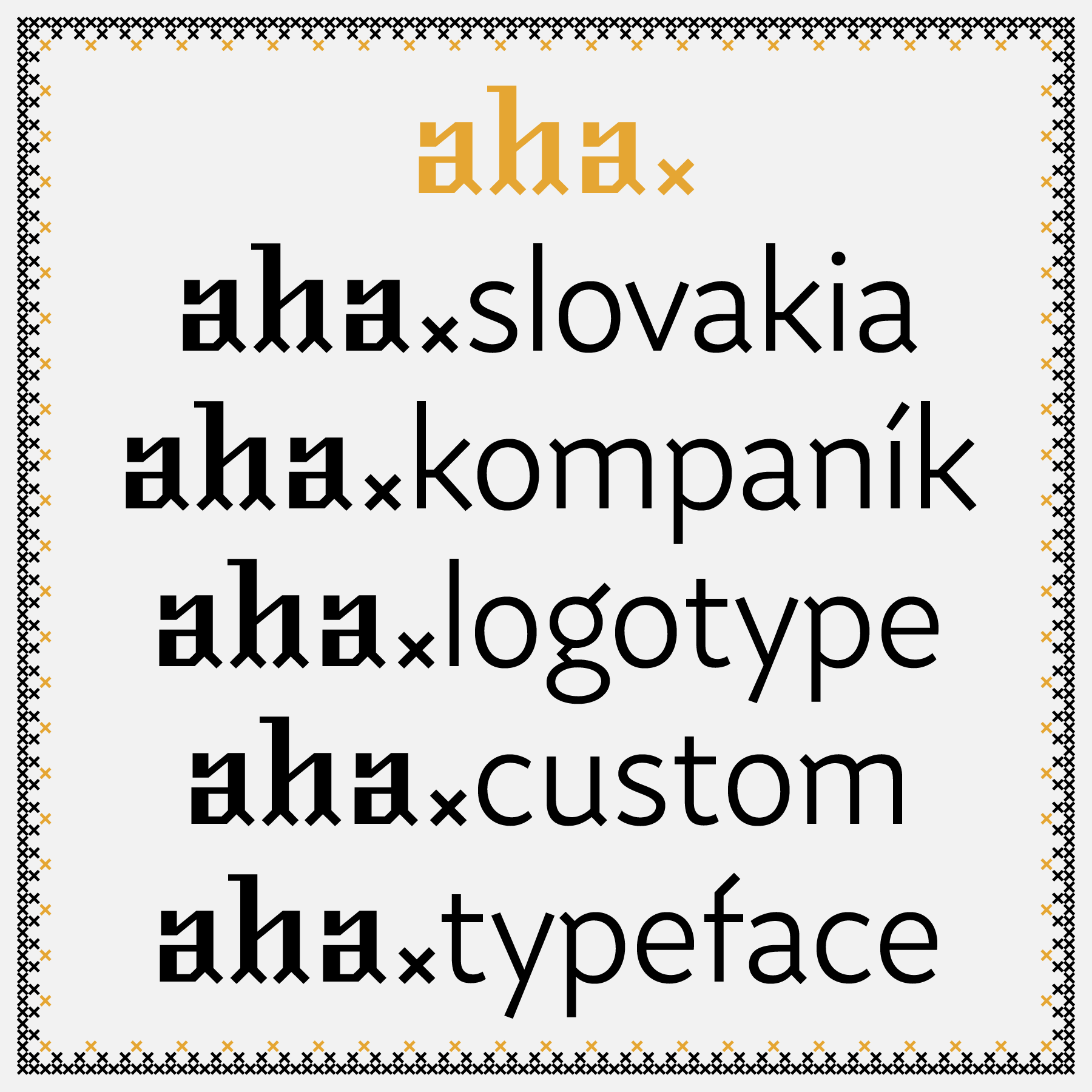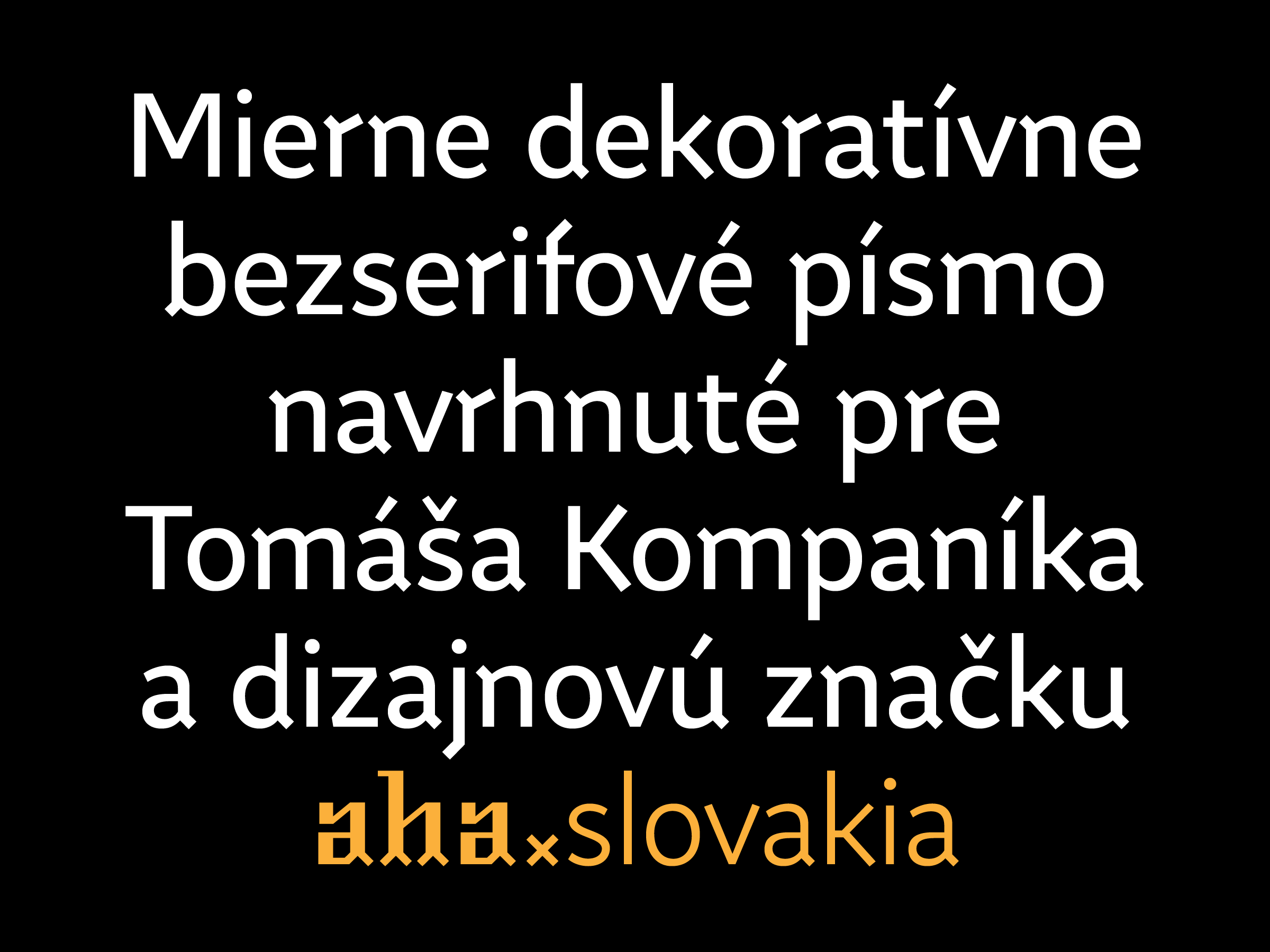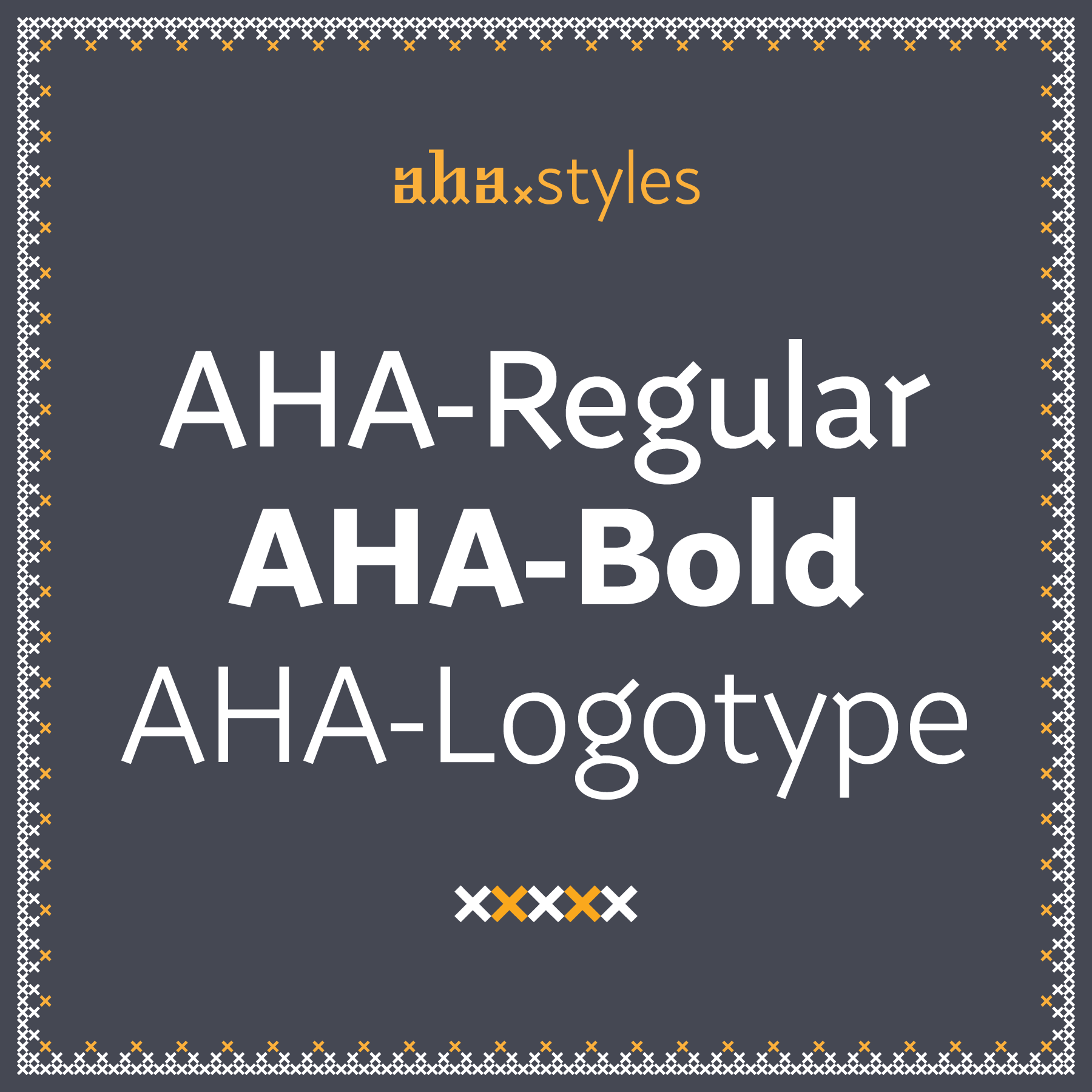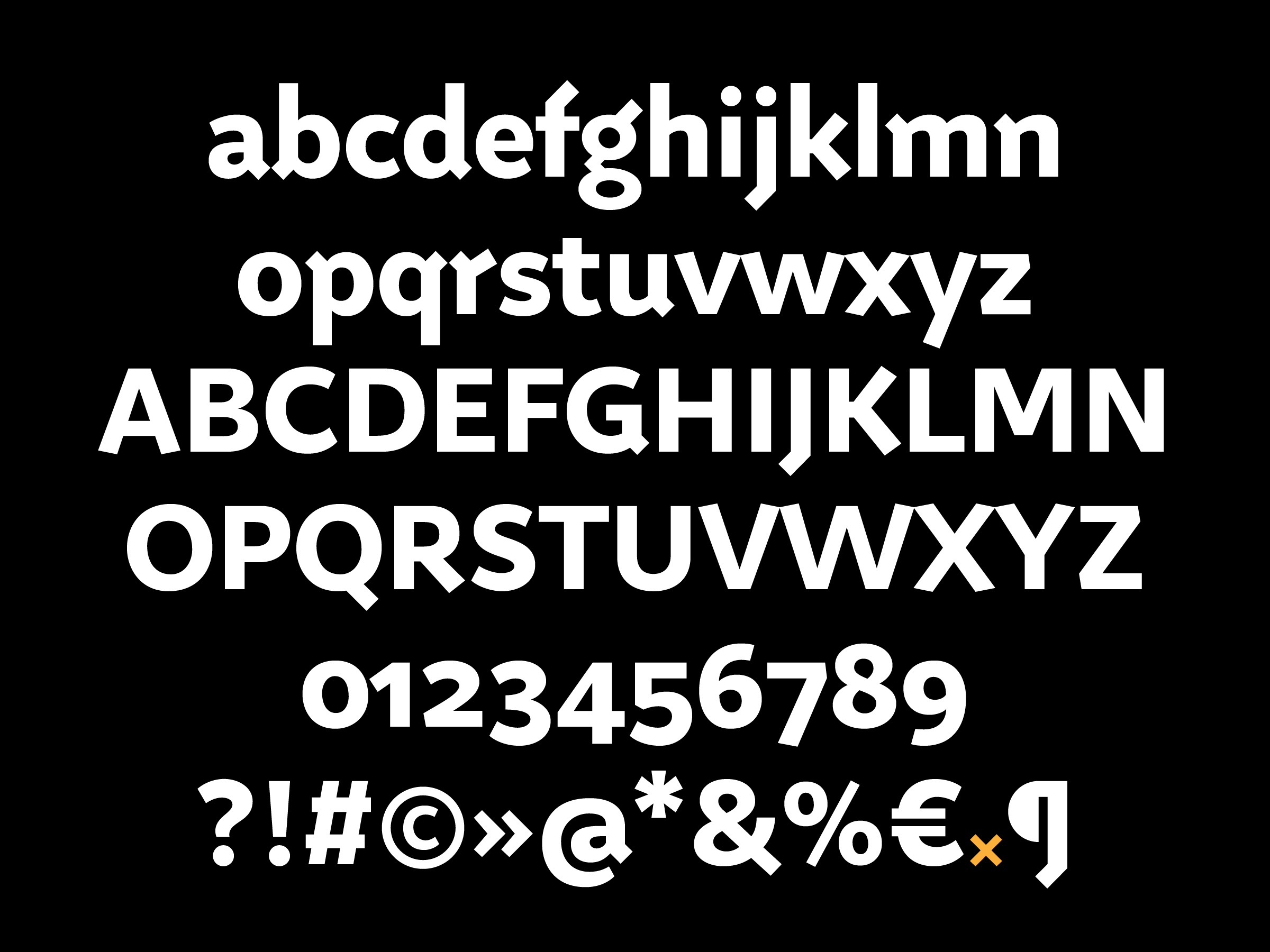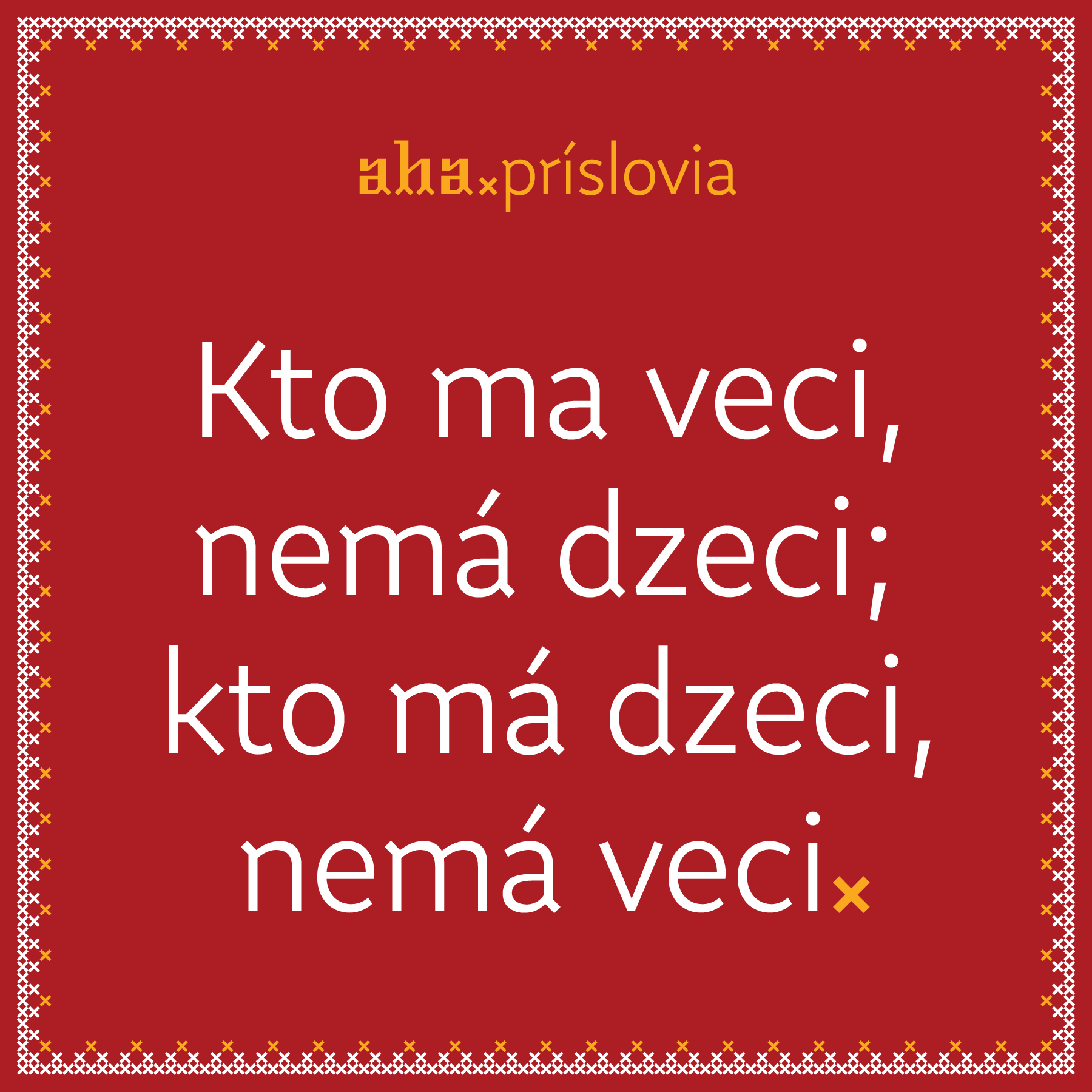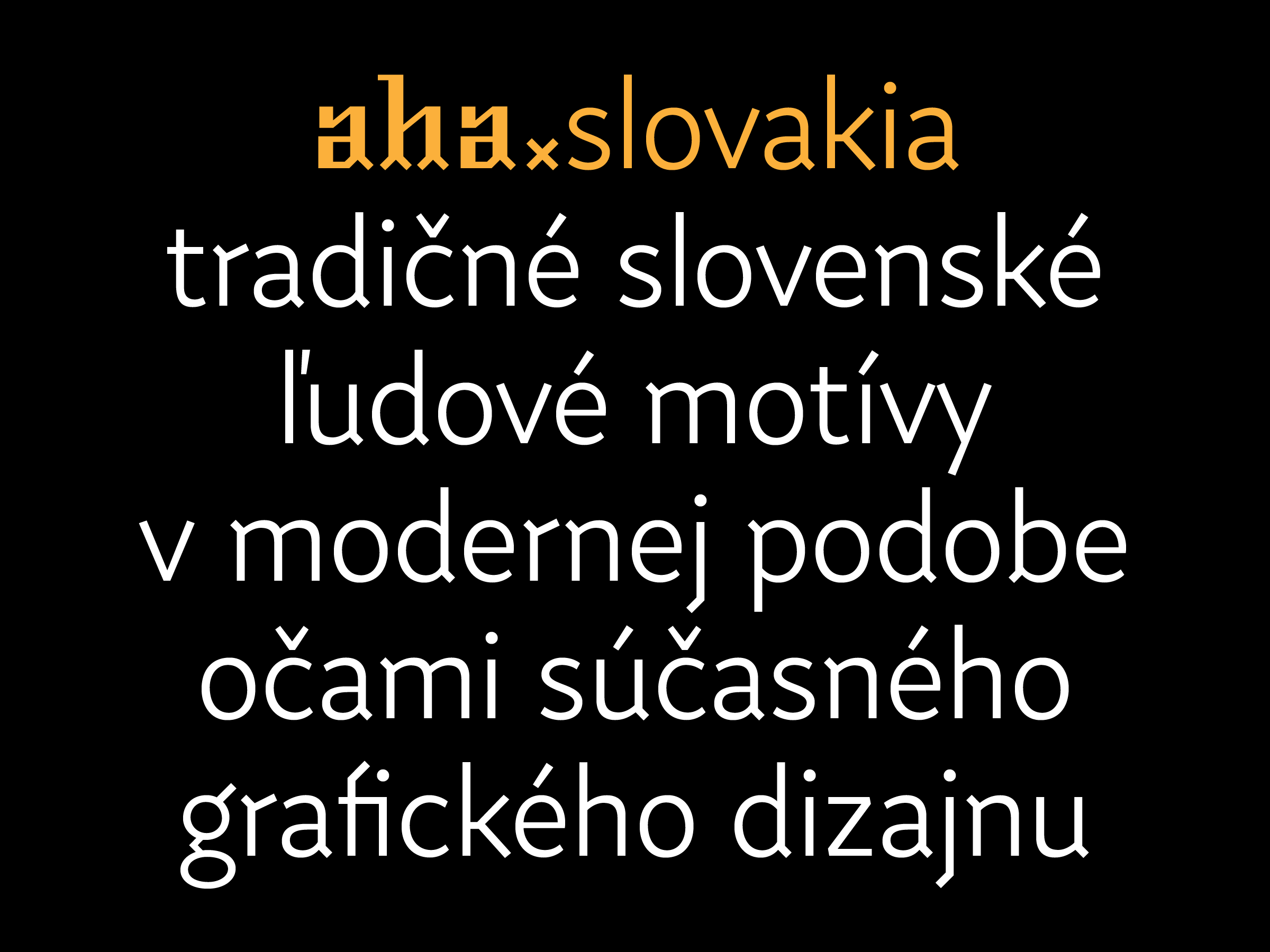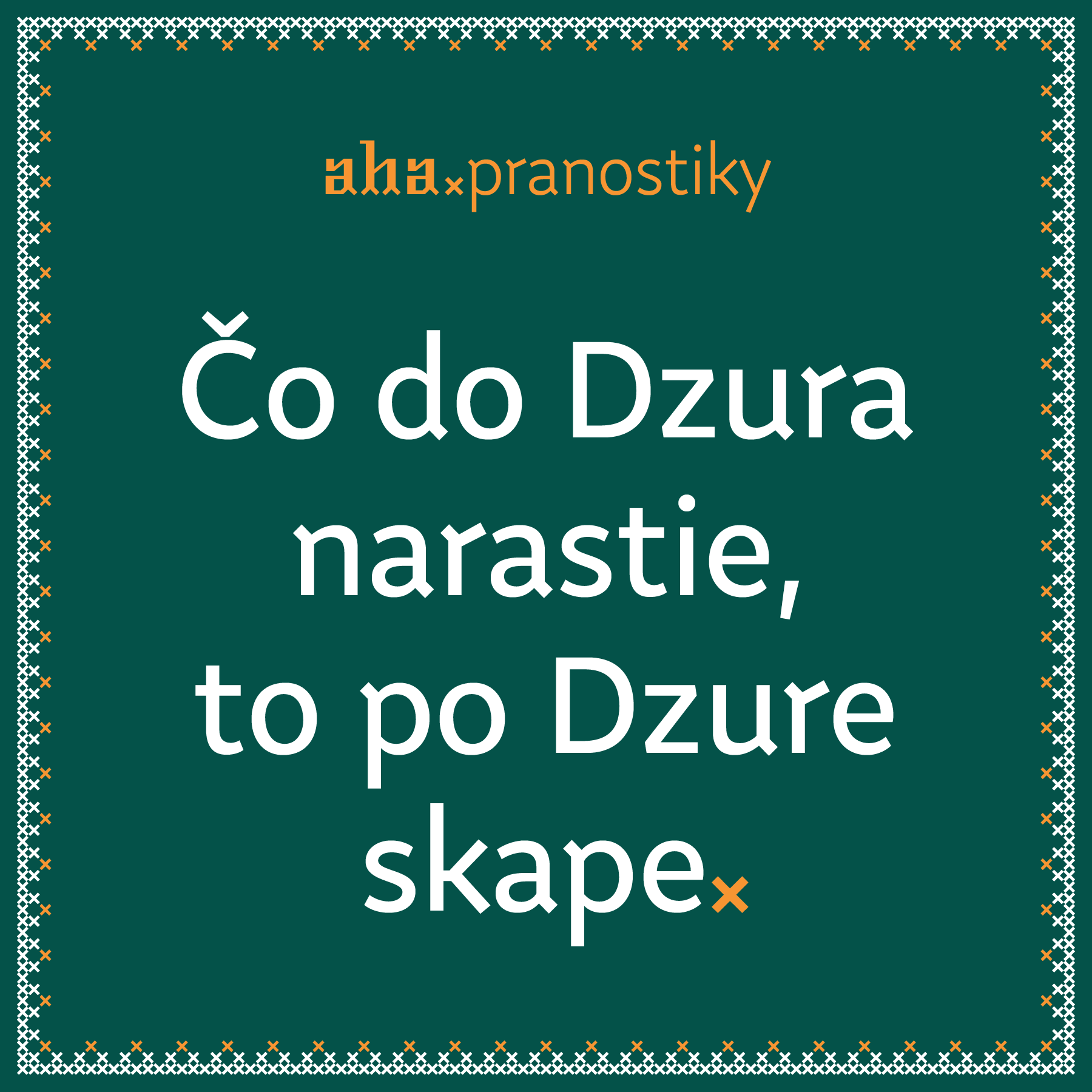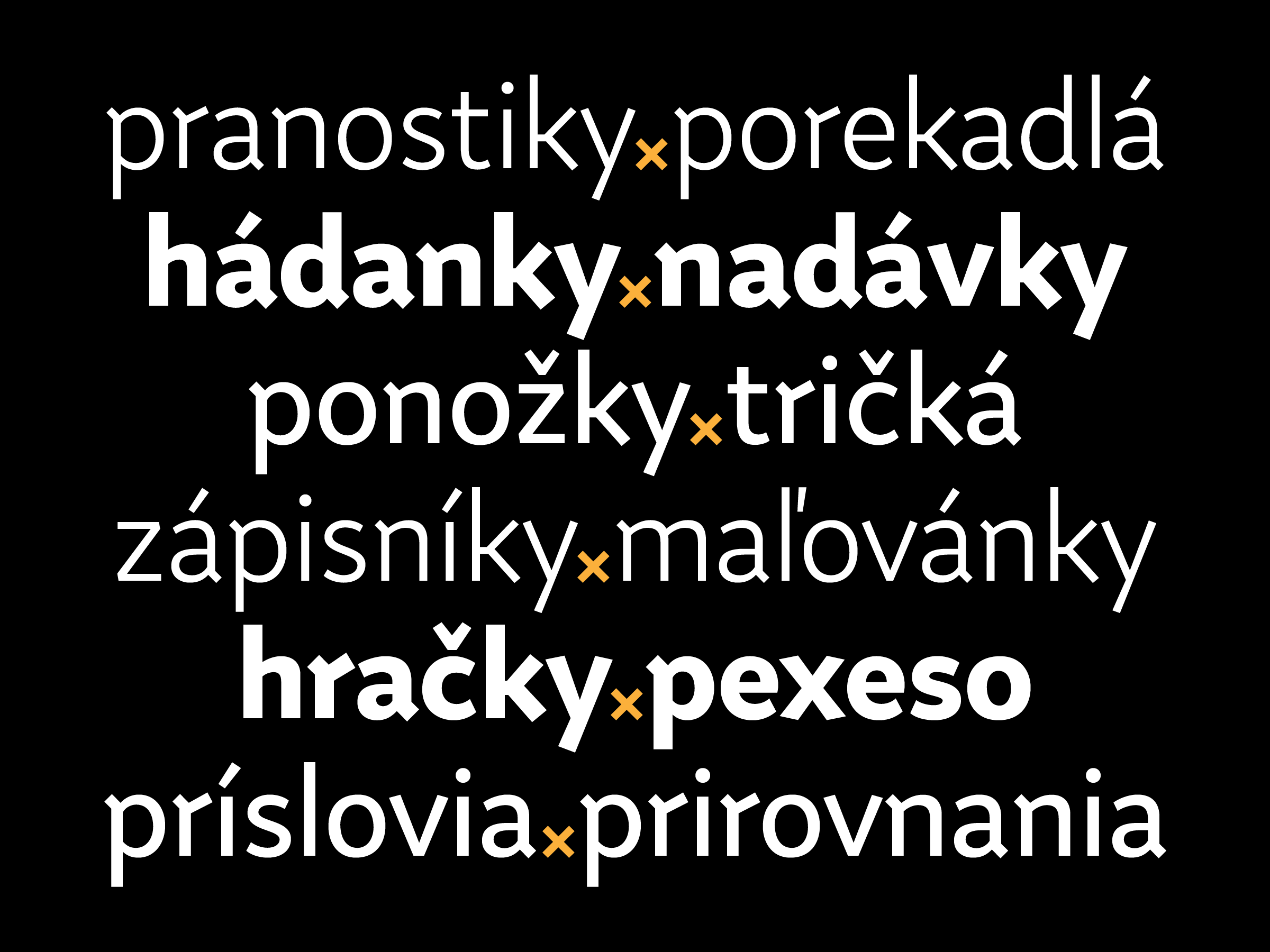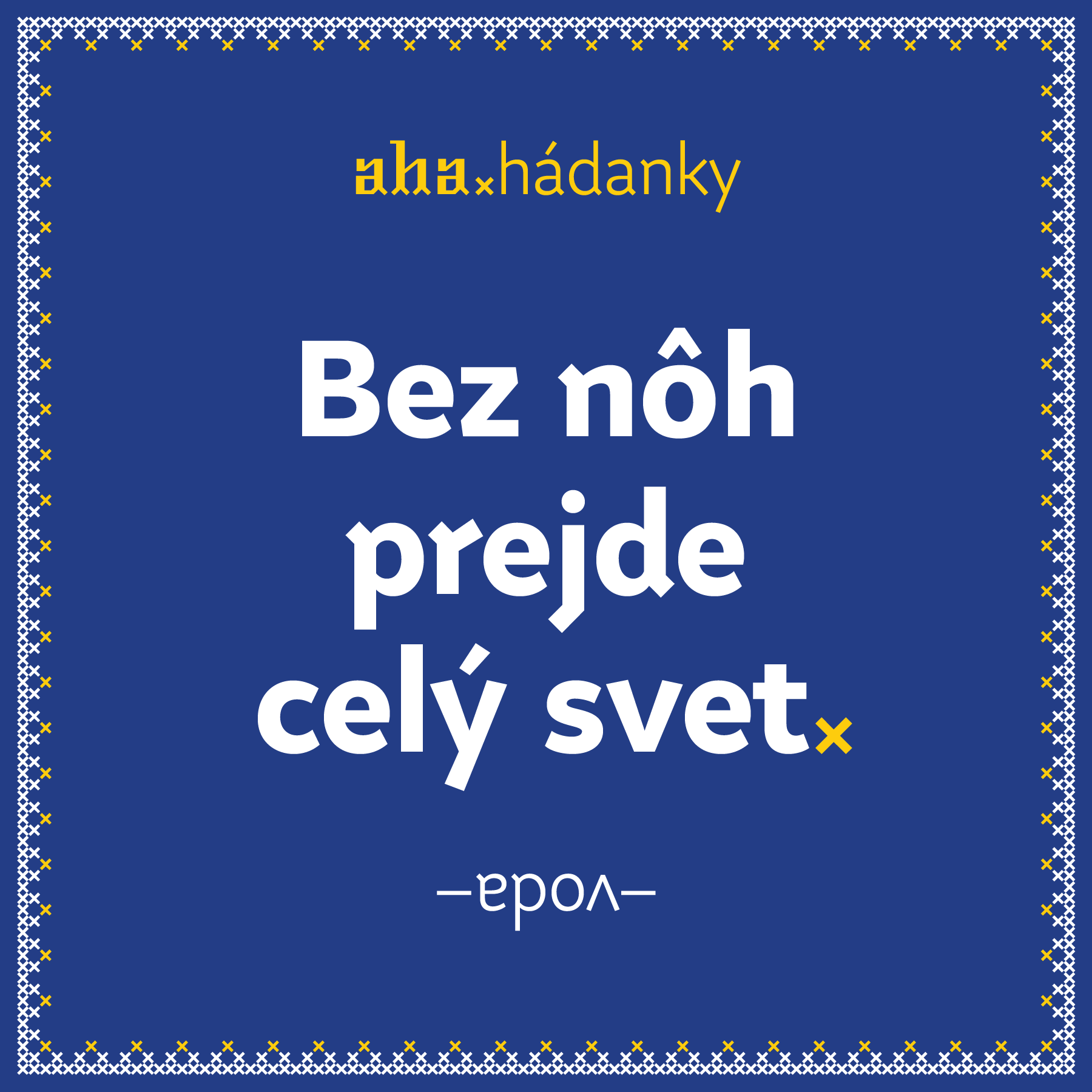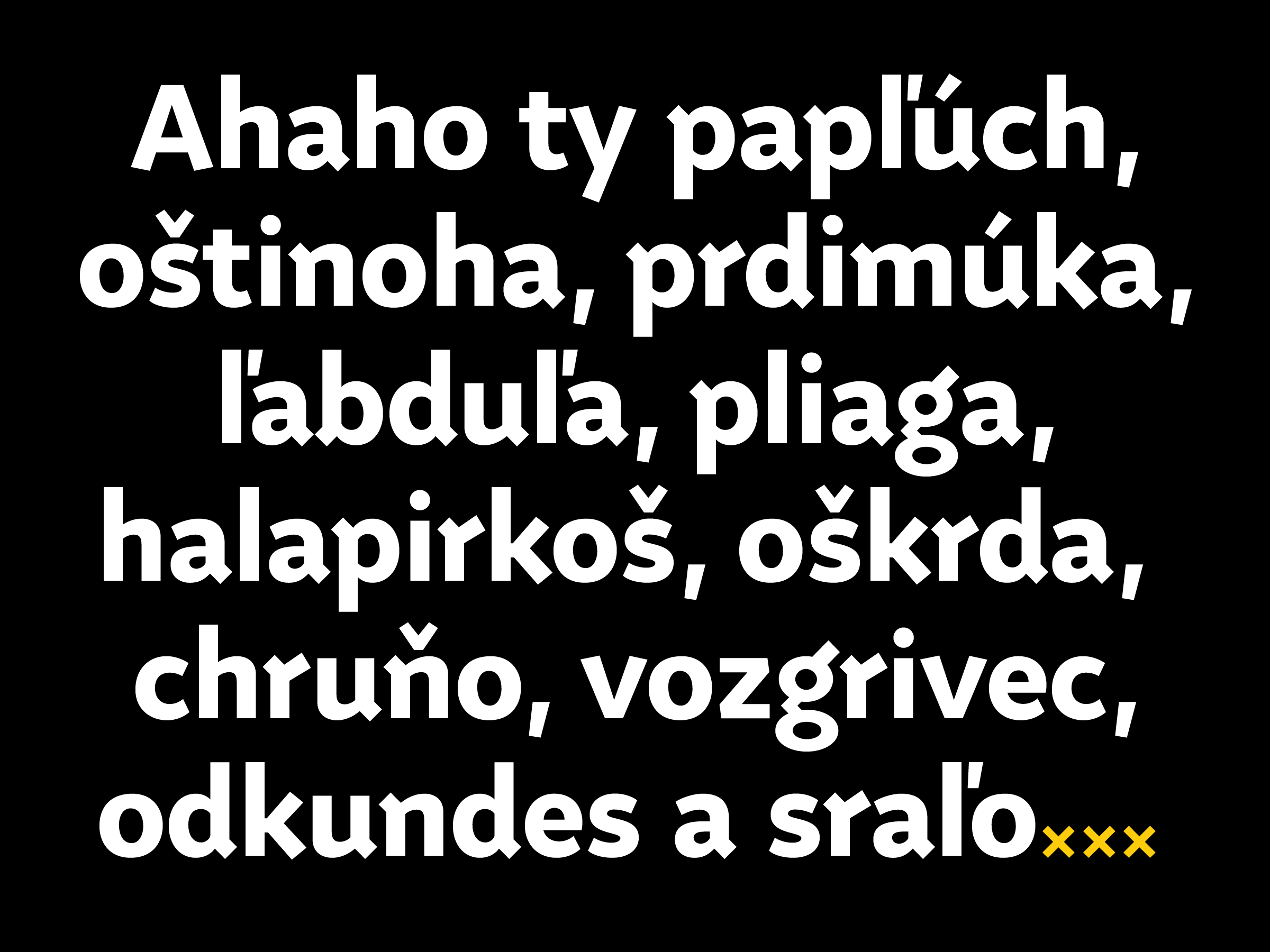
aha
A custom, slightly decorative sans-serif typeface in three styles created for graphic designer Tomáš Kompaník and his aha.slovakia project. The basis for this typeface was design of a logotype system, which can be easily supplemented by other derived logos. Each of the fonts consist of a special discretionary ligature for an aha.sign, wide character set and standard OpenType features. Aha.slovakia is a collection of traditional Slovak folk motifs in a modern form, presented in the style of contemporary graphic design and with respect to domestic traditions.